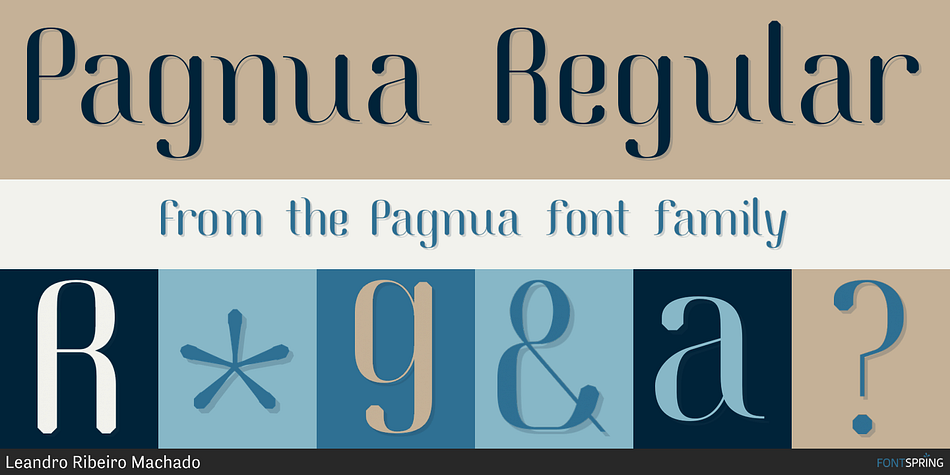
Pagnua Regular
Designed by Leandro Ribeiro Machado, Pagnua is a sans serif font published by Leandro Ribeiro Machado.
Pagnua is a font for small texts and is ideal for embalage, advertising, publishing, logo, poster, signage.